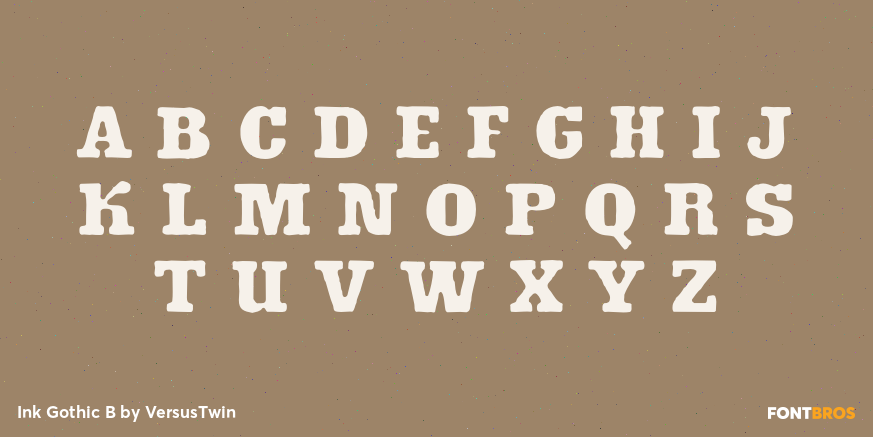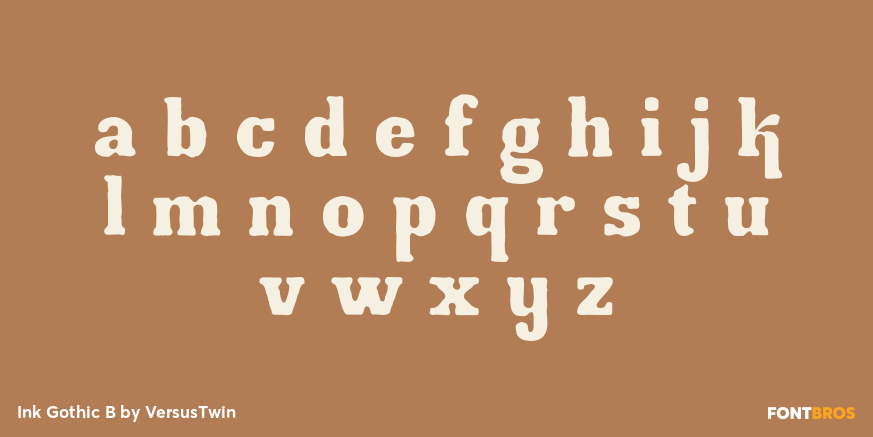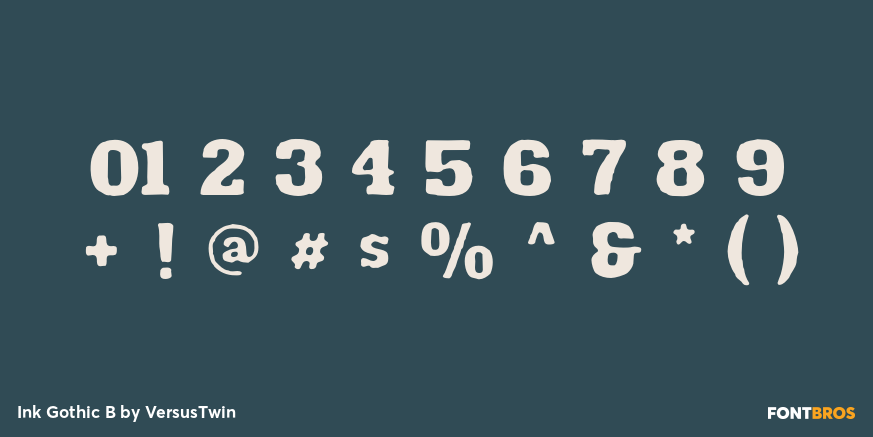
Ink Gothic B
Font Family by VersusTwin
Ink Gothic is a contemporary slab serif with a split personality - a mix of heavy industrial with light typographic twists. Unique letterforms evolve the typeface into a class all its own.
The Ink Gothic Alt styles add italic letter-styling and cursive loop appeal to the lowercase characters, taking the more refined stylings and giving them an elegant twist adding versatility and beauty. Stylistic Alternates are available for the b & k characters.